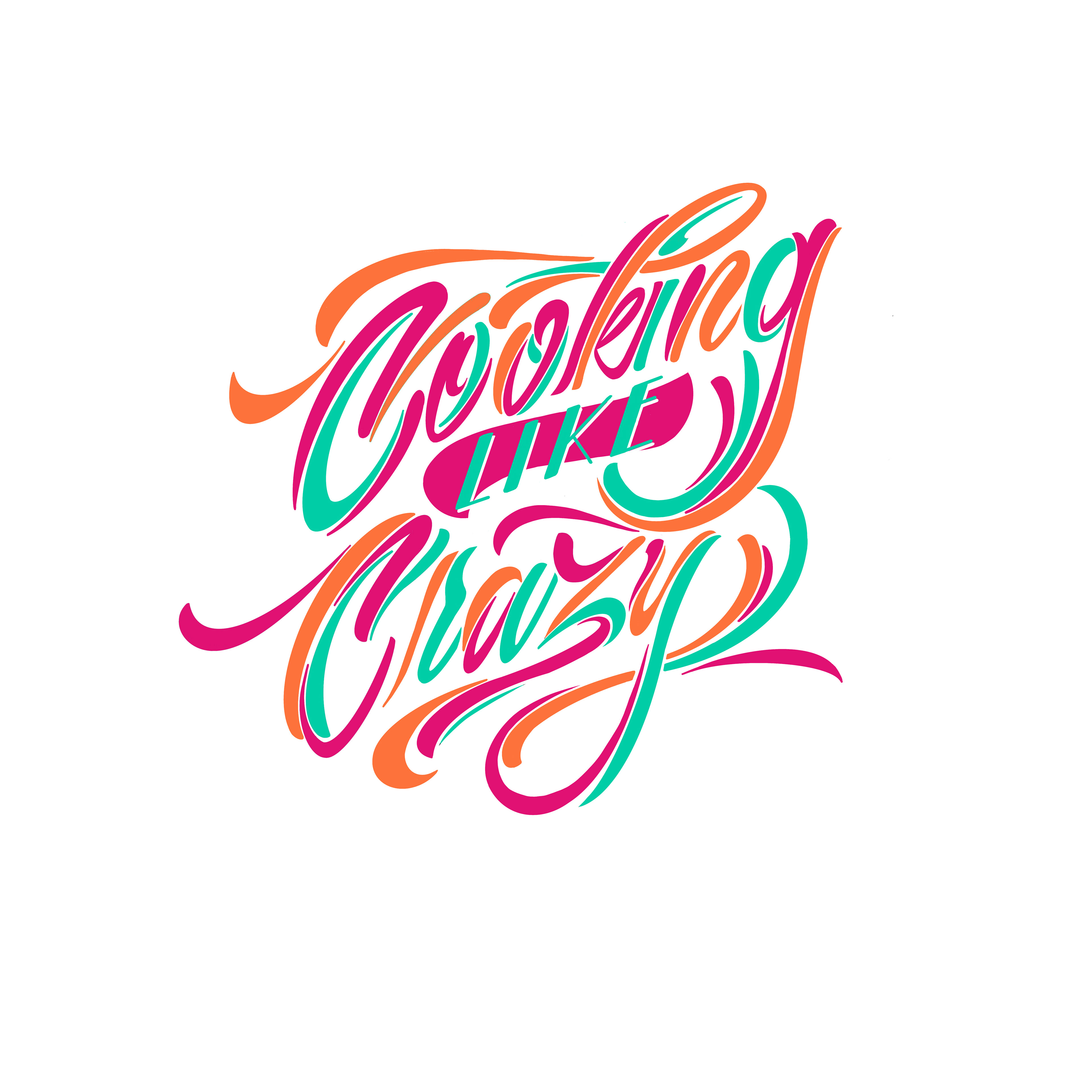
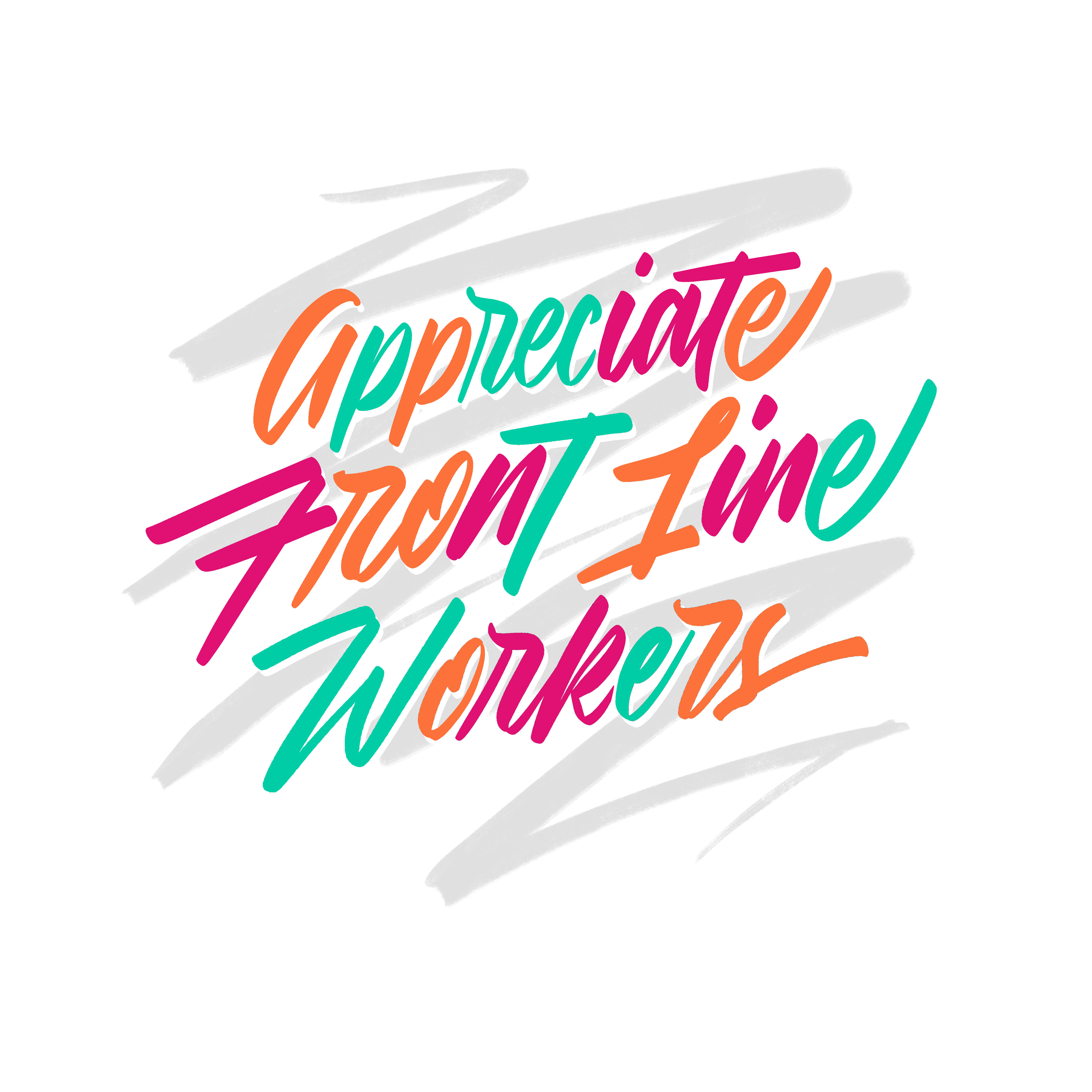
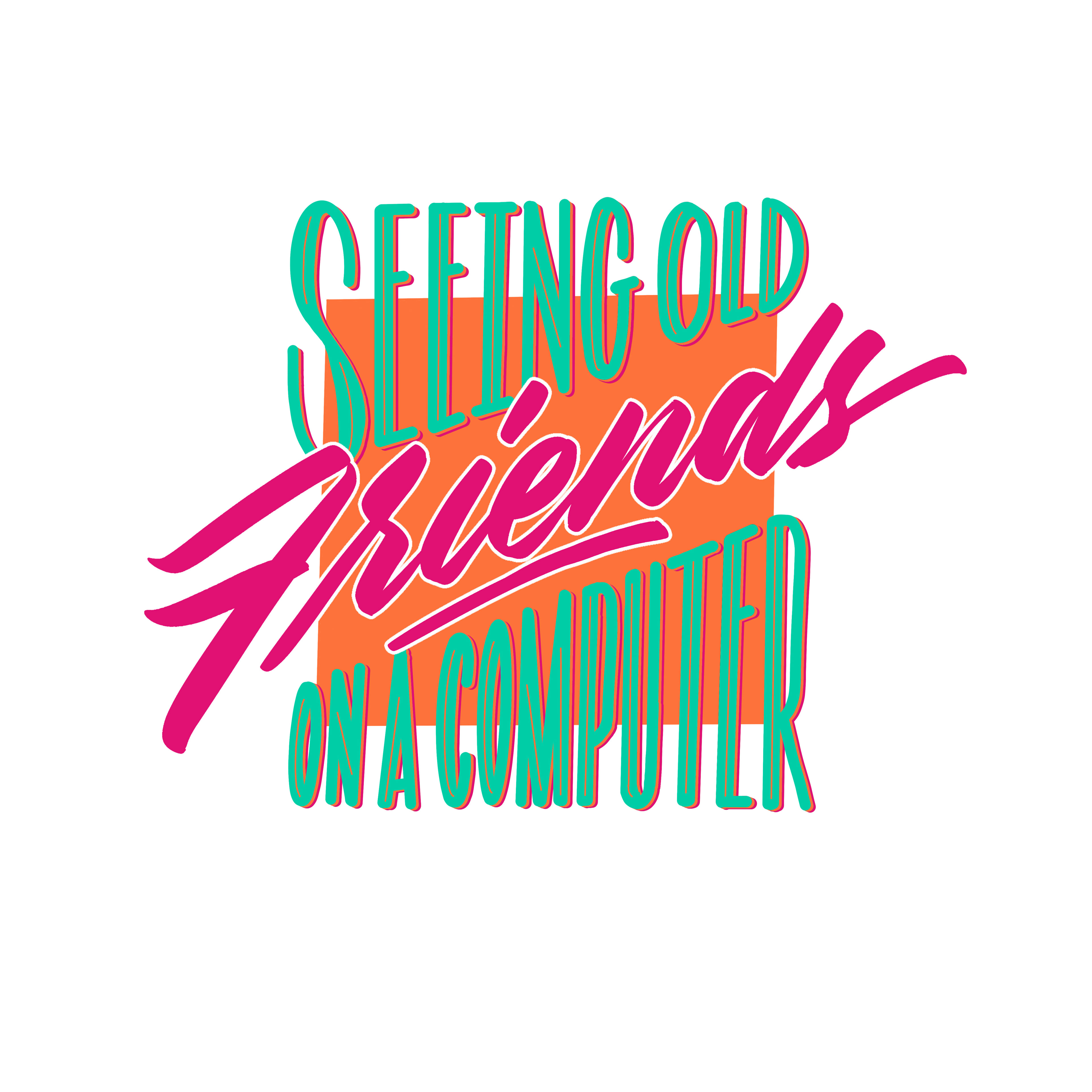
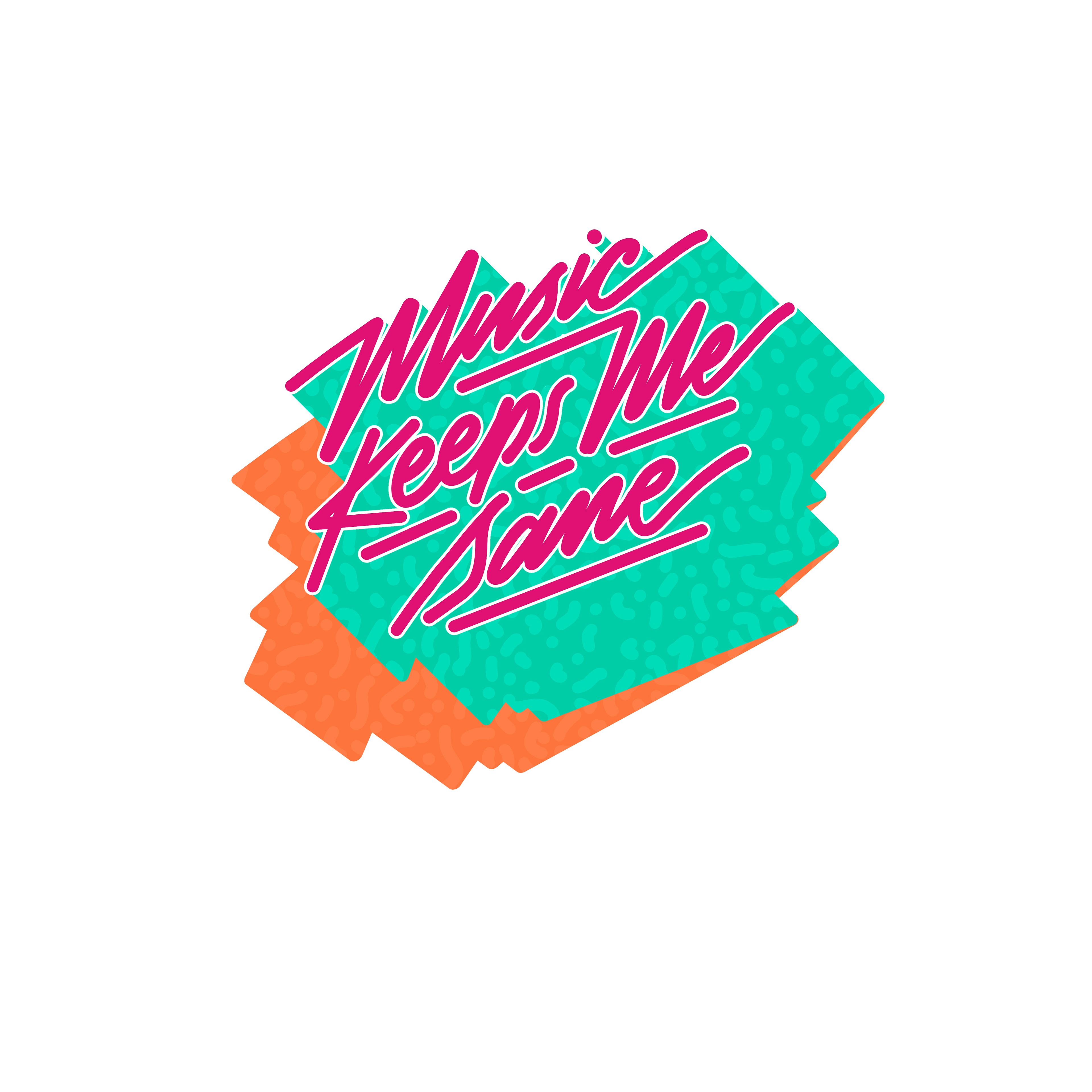
Seeing the daily negative headlines and the building anxiety of being holed up in one’s home for the foreseeable future, I wanted to shine a bright spot on what most of us are going through right now. There are a number of things to feel grateful for and have a positive outlook on, these compositions represent just a handful. The color palette is bright in order to infuse positive energy into our day to day. All artwork was made with Procreate.